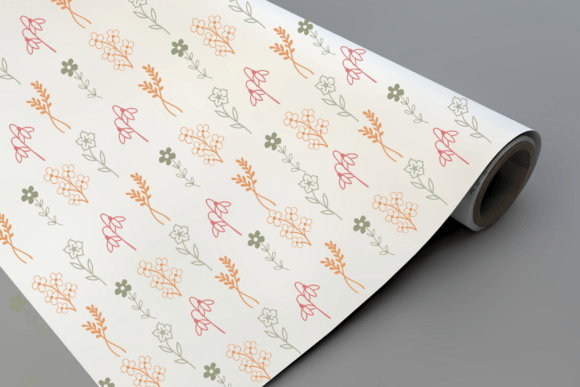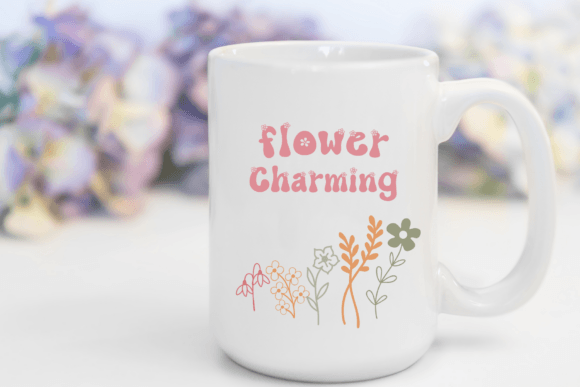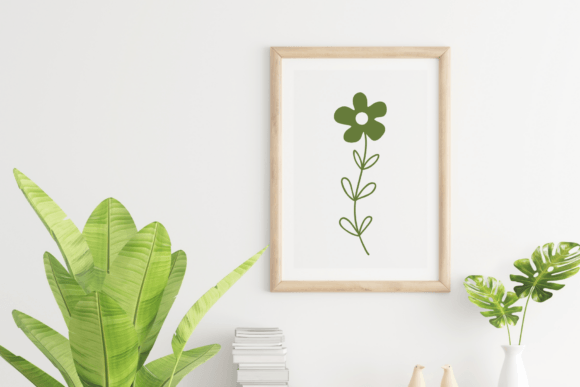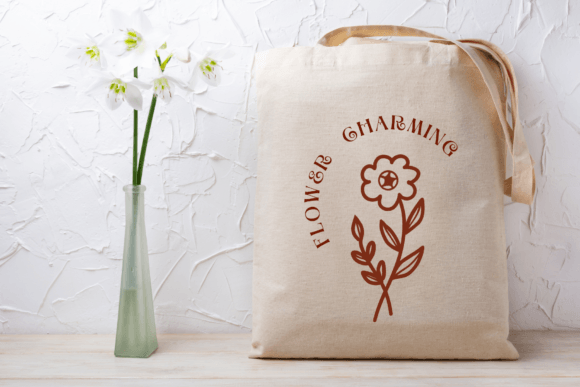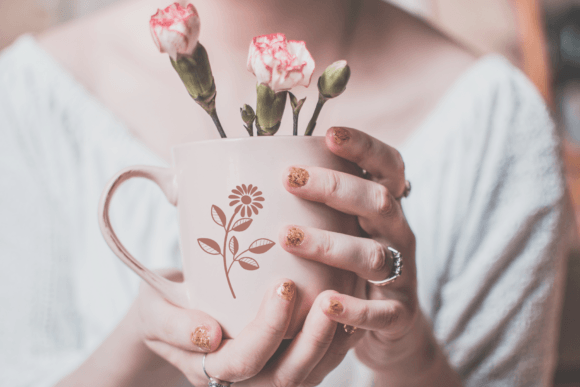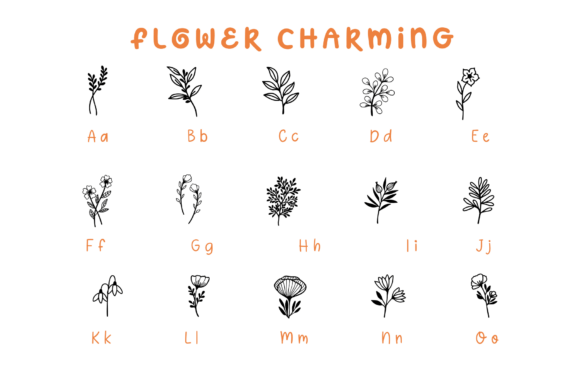
Introducing Flower Charming Font: The Ultimate Dingbat Font for Delightful Designs
Are you a designer, crafter, or DIY enthusiast looking for a unique and charming font to add a touch of cuteness to your projects? Look no further than Flower Charming Font, a delightful dingbat font featuring beautiful flower illustrations. In this article, we’ll explore the features and benefits of Flower Charming Font and how it can elevate your designs, from children’s books to wedding invitations, and beyond.
What is Flower Charming Font?
Flower Charming Font is a dingbat font that showcases an adorable collection of flower illustrations. Each character in the font is carefully designed to bring a touch of whimsy and charm to your designs. The font is perfect for creating eye-catching and engaging visuals that are sure to capture the attention of your audience.
Features of Flower Charming Font
- Unique Flower Illustrations: The font features a wide range of beautiful flower illustrations, each one carefully crafted to bring a touch of elegance and charm to your designs.
- Cute and Playful: The illustrations in Flower Charming Font are designed to be cute and playful, making it perfect for designs aimed at children or those who love a touch of whimsy.
- Scalable: The font is highly scalable, allowing you to use it for a wide range of projects, from small icons to large posters.
Uses for Flower Charming Font
Flower Charming Font is an incredibly versatile font that can be used for a wide range of creative projects. Here are some ideas to get you started:
- Children’s Books: Add a touch of whimsy and charm to your children’s book illustrations with Flower Charming Font.
- Greeting Cards: Create eye-catching and engaging greeting cards for birthdays, weddings, and other special occasions.
- Wedding Invitations: Use Flower Charming Font to create beautiful and unique wedding invitations that set the tone for a special day.
- DIY and Crafts: Add a personal touch to your DIY projects and crafts with the charming illustrations in Flower Charming Font.
- Decorations and Logos: Use the font to create custom decorations, logos, and branding materials that showcase your unique style.
- Social Media Posts: Add a touch of cuteness to your social media posts and make them stand out from the crowd.
Benefits of Using Flower Charming Font
Using Flower Charming Font in your designs offers a range of benefits, including:
- Unique and Eye-Catching Designs: The font’s unique illustrations will help your designs stand out from the crowd and capture the attention of your audience.
- Time-Saving: With Flower Charming Font, you can create professional-looking designs in no time, without the need for extensive design experience.
- Cute and Playful Aesthetic: The font’s cute and playful aesthetic is sure to bring a smile to your audience’s faces and leave a lasting impression.